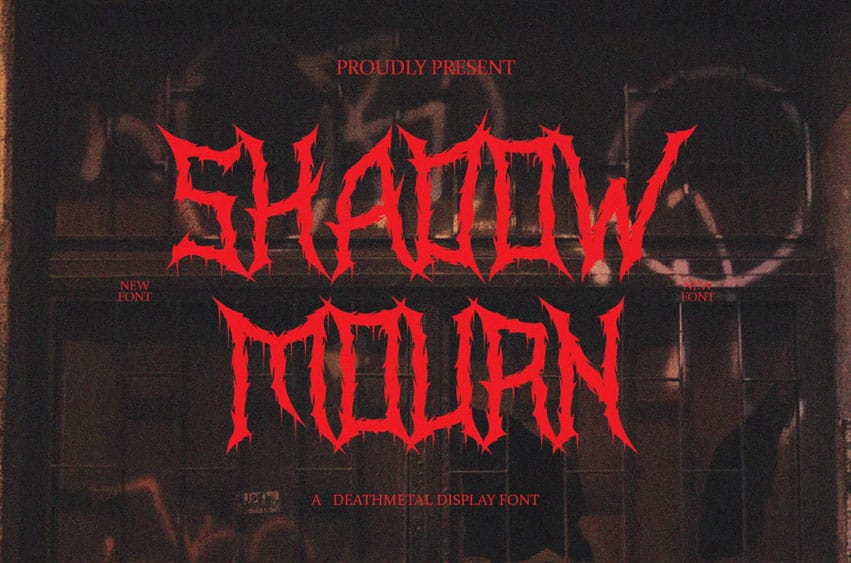
Shadowmourn Blackmetal Font is a black metal font that encapsulates the essence of eternal darkness and sorrow, where shadows stretch endlessly and mourn the fallen. The name “Shadowmourn” evokes imagery of a world submerged in perpetual twilight, where light is a distant memory and the echoes of sorrowful cries are carried by the wind.
It speaks to the mourning of lost souls, a mournful yet powerful silence that hangs over a ruined, forgotten land.